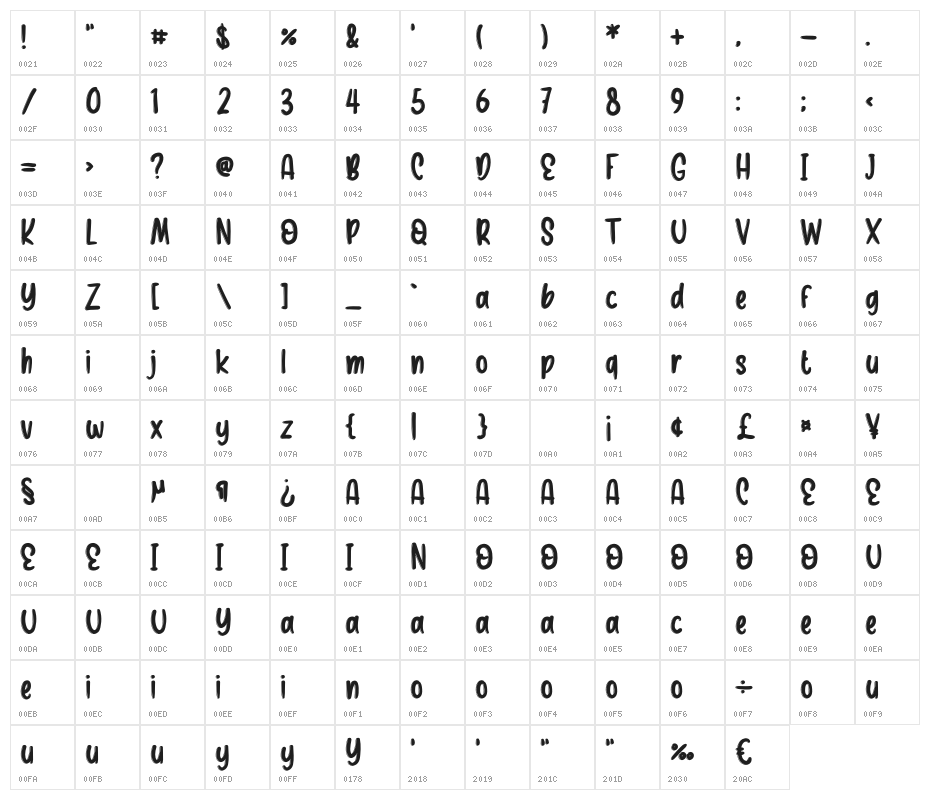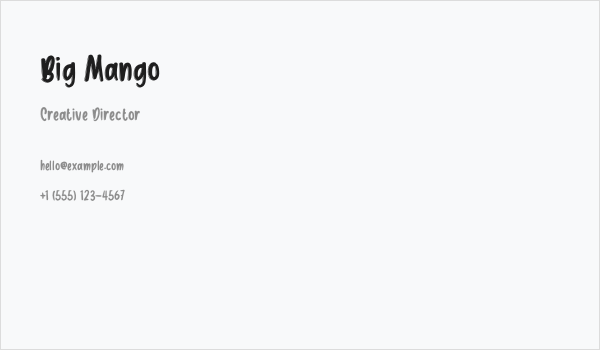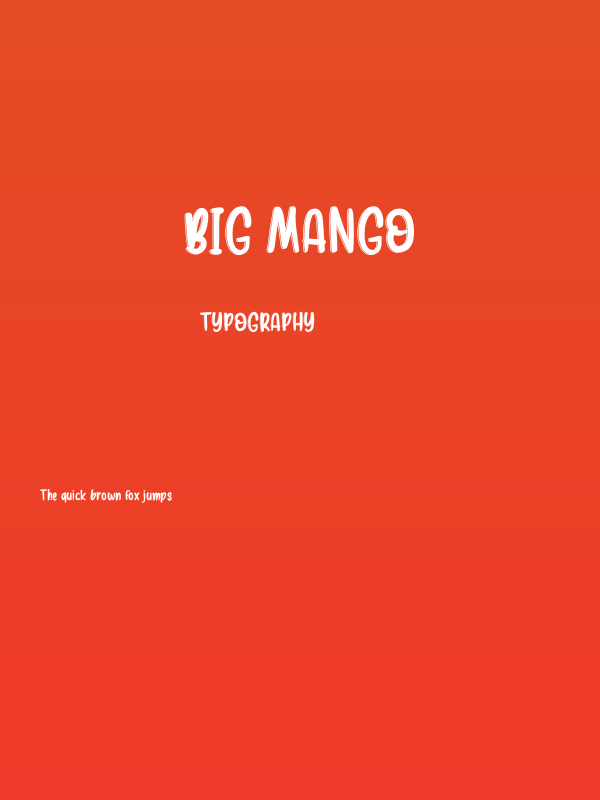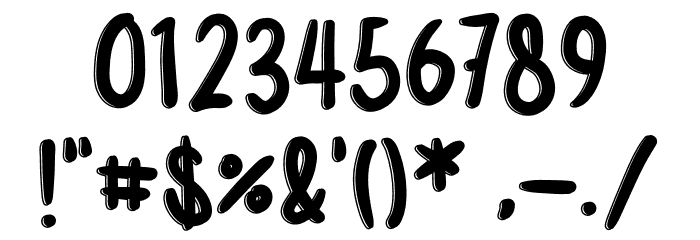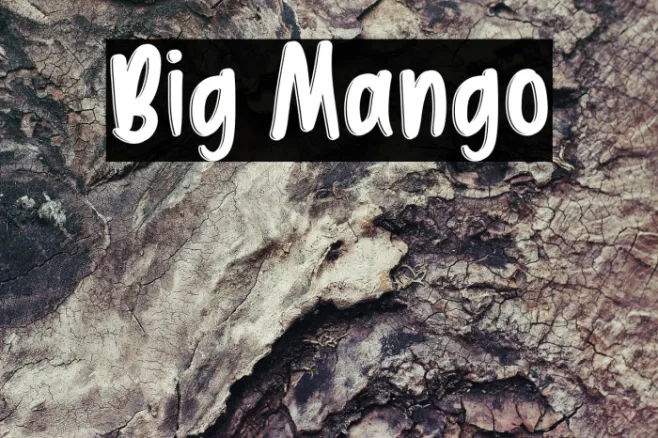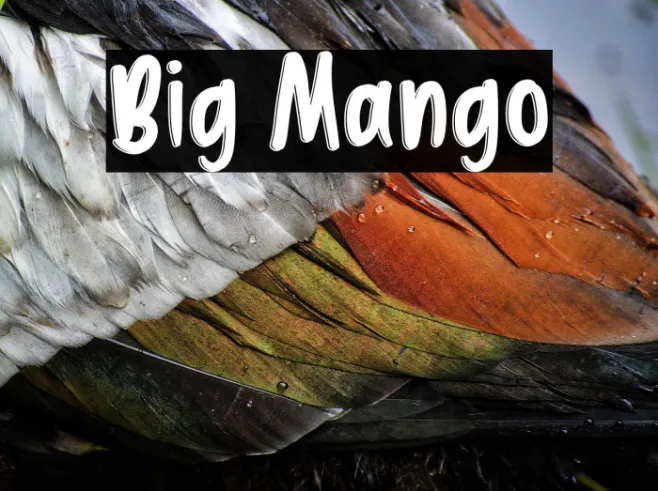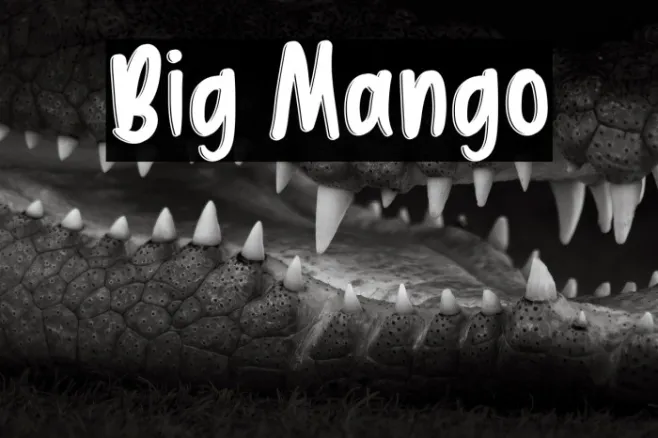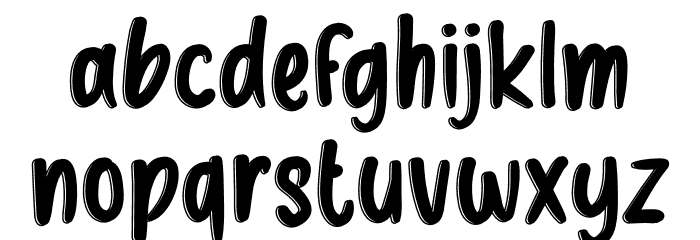
Big Mango Font
Big Mango Description
This playful and energetic font features bold, rounded characters with a hand-drawn aesthetic. The letters have a consistent thickness, giving them a uniform appearance, while the slightly irregular edges add a touch of whimsy. The uppercase and lowercase letters maintain a cohesive style, with the uppercase being slightly taller and more pronounced. Numbers and special characters are designed to match the lively feel of the alphabet, making them suitable for a variety of creative projects. The font's overall look is casual and friendly, perfect for designs that aim to convey a sense of fun and approachability.
| Proposed Projects | Ideal for children's books, playful branding, greeting cards, and social media graphics. |